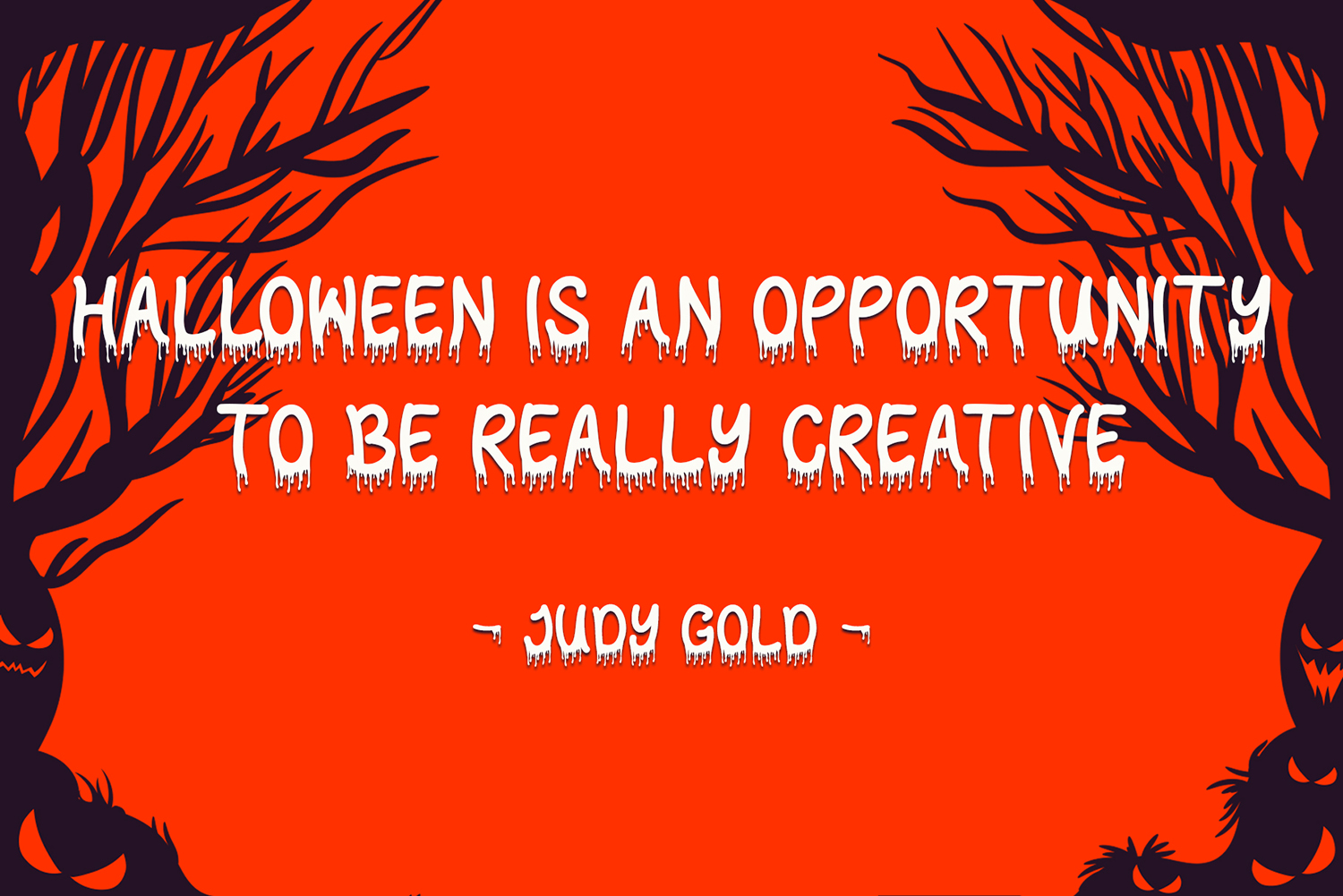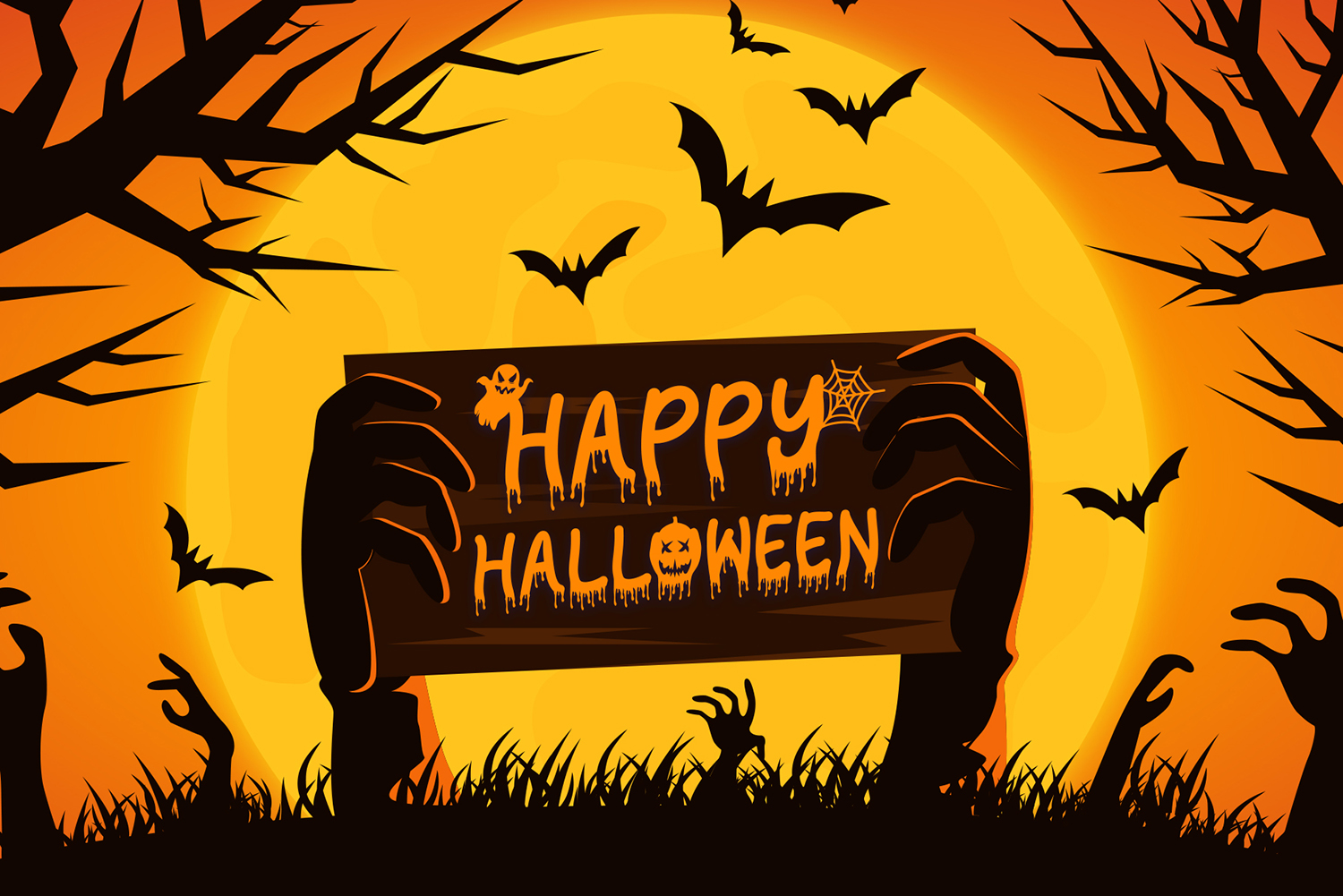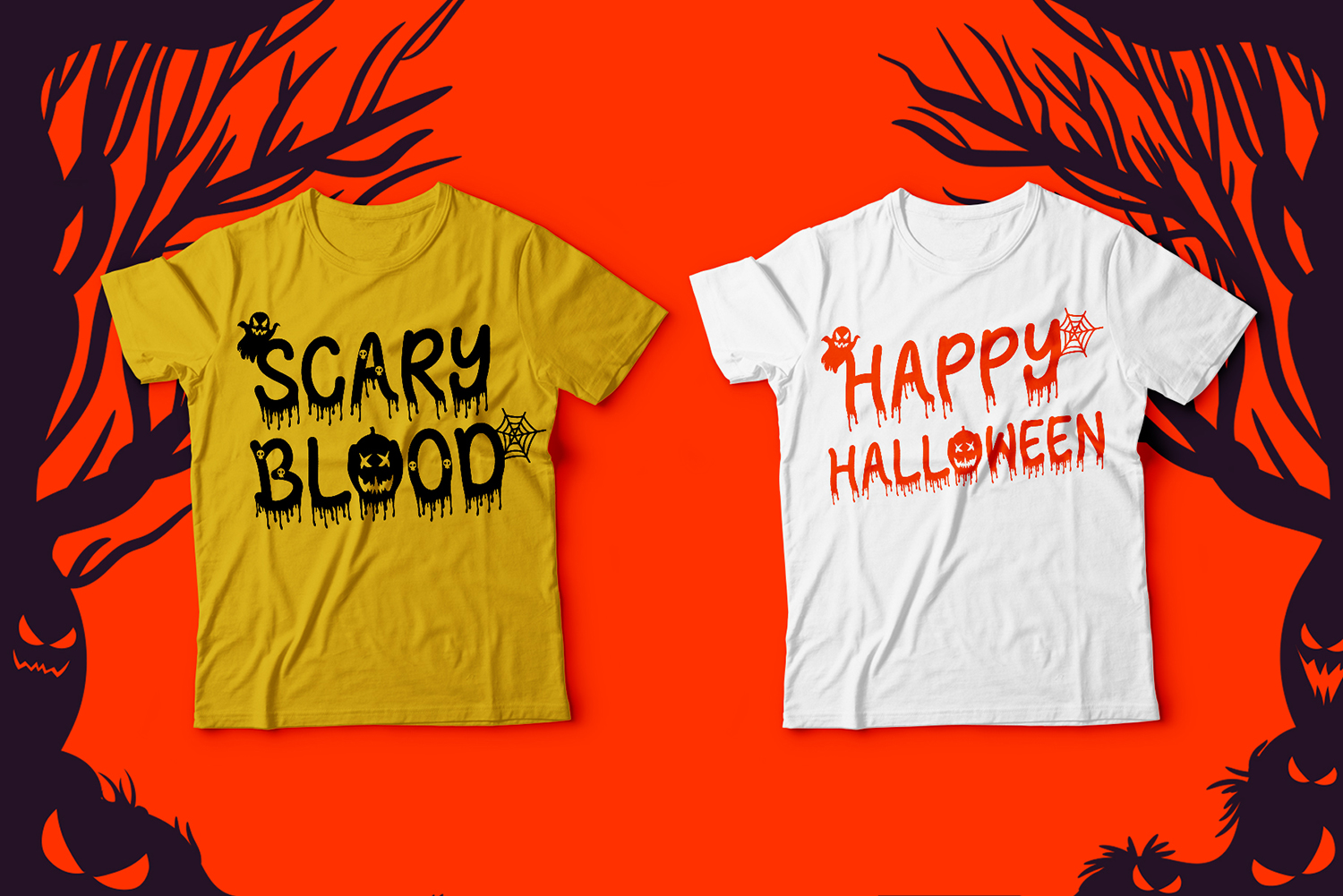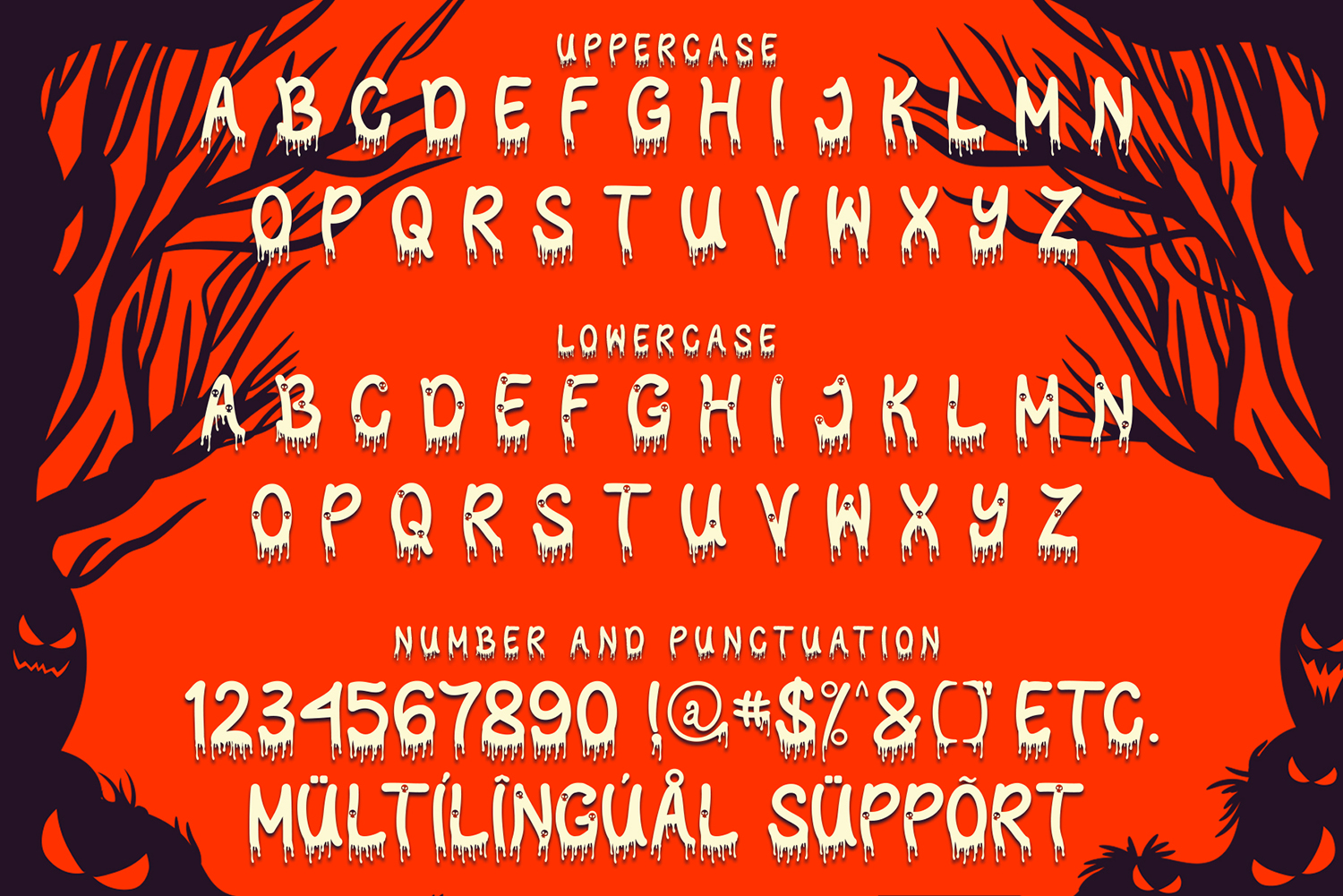
Scary Blood Free Font
Introducing Scary Blood Free Font, an eerie and bold decorative font that adds a spine-chilling touch to your designs. Whether your theme is spooky or not, this font is an invaluable addition to your font library, promising to enhance the visual impact of any creative endeavor. Elevate your creations with the distinctive appeal of Scary Blood. This free typeface was designed by a talentedΒ Alif Ryan Zulfikar. If you like it don’t forget to check out the full version.